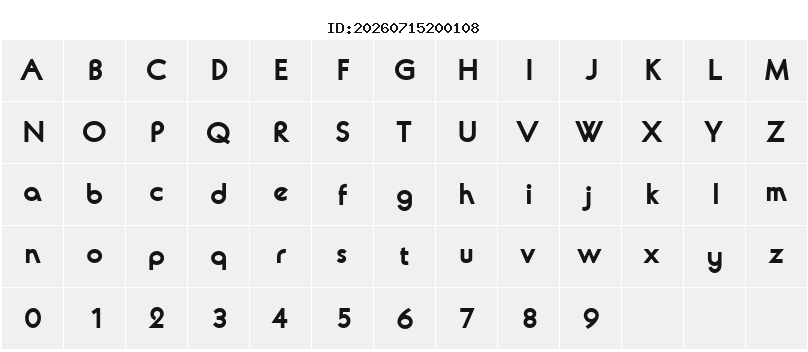
AvalonURWTBol.ttf is a modern, elegant sans-serif font designed for ultimate readability and visual harmony. Perfect for branding, headlines, web design, and print materials.